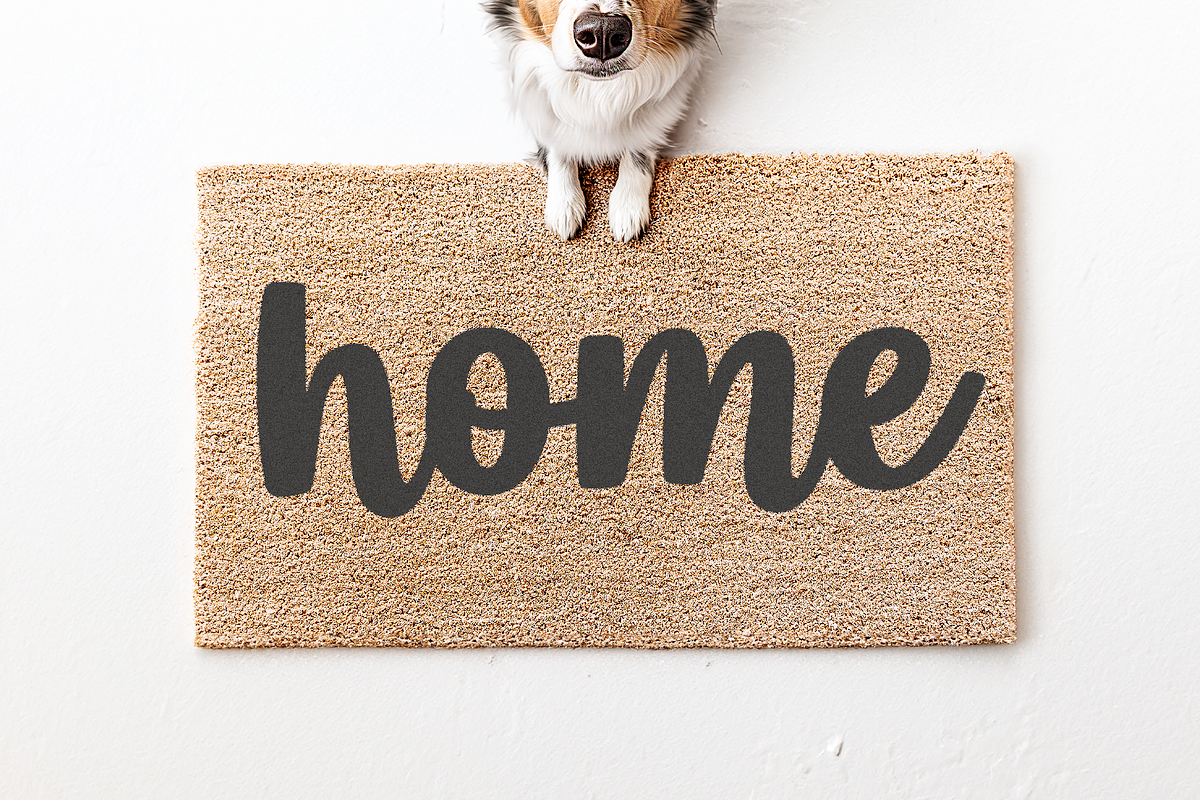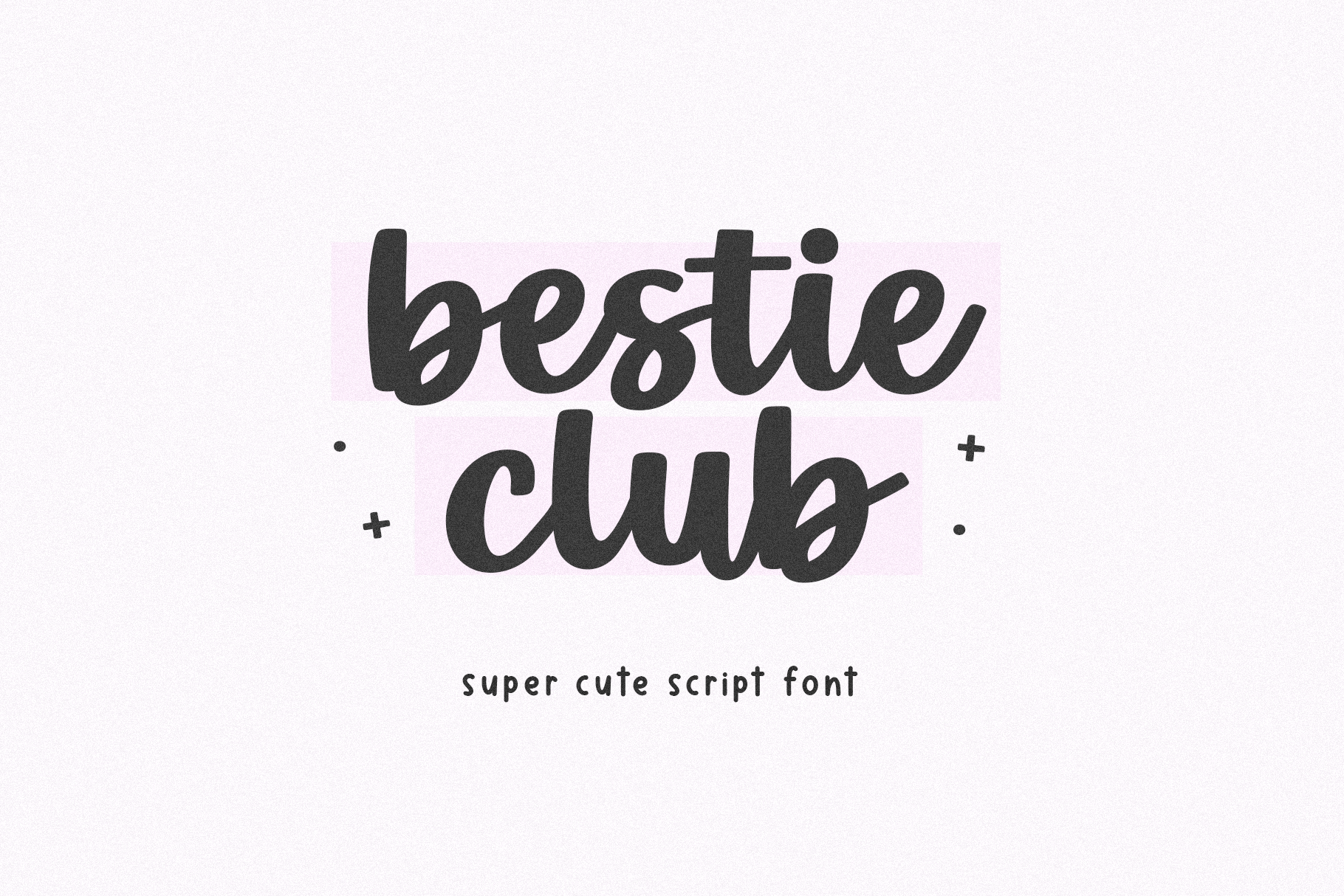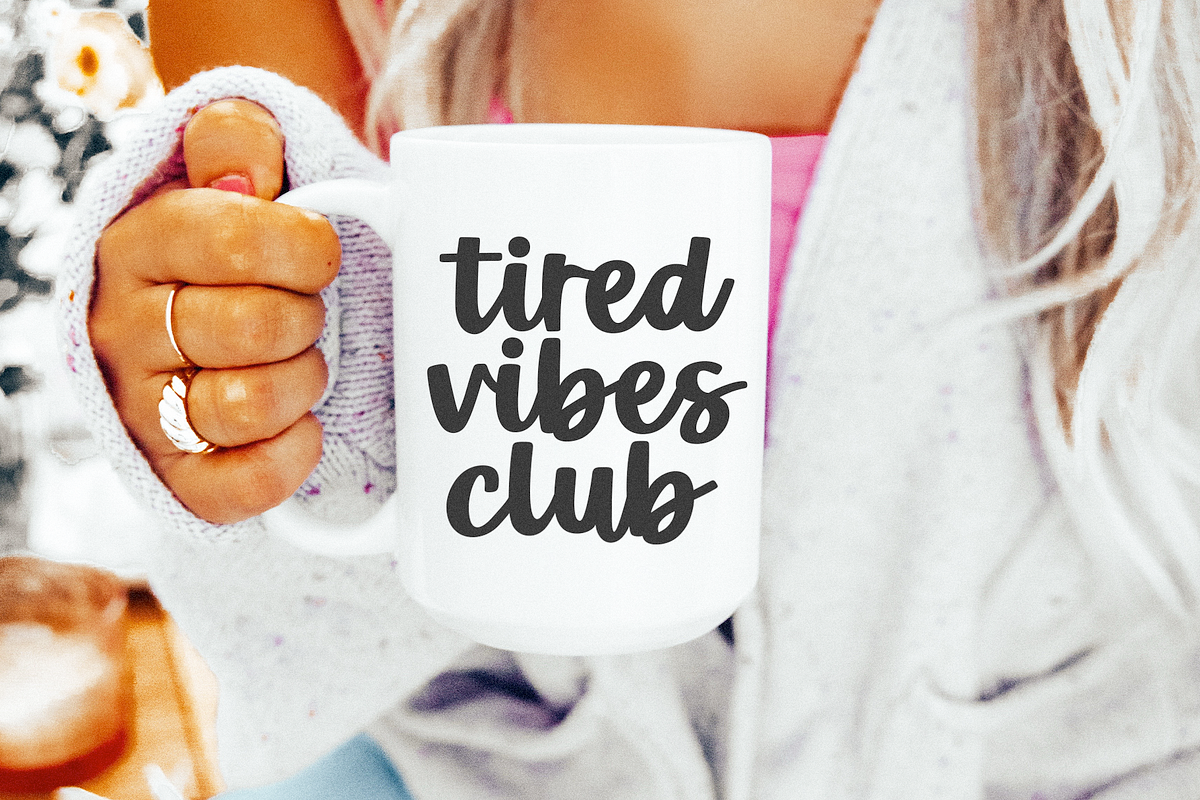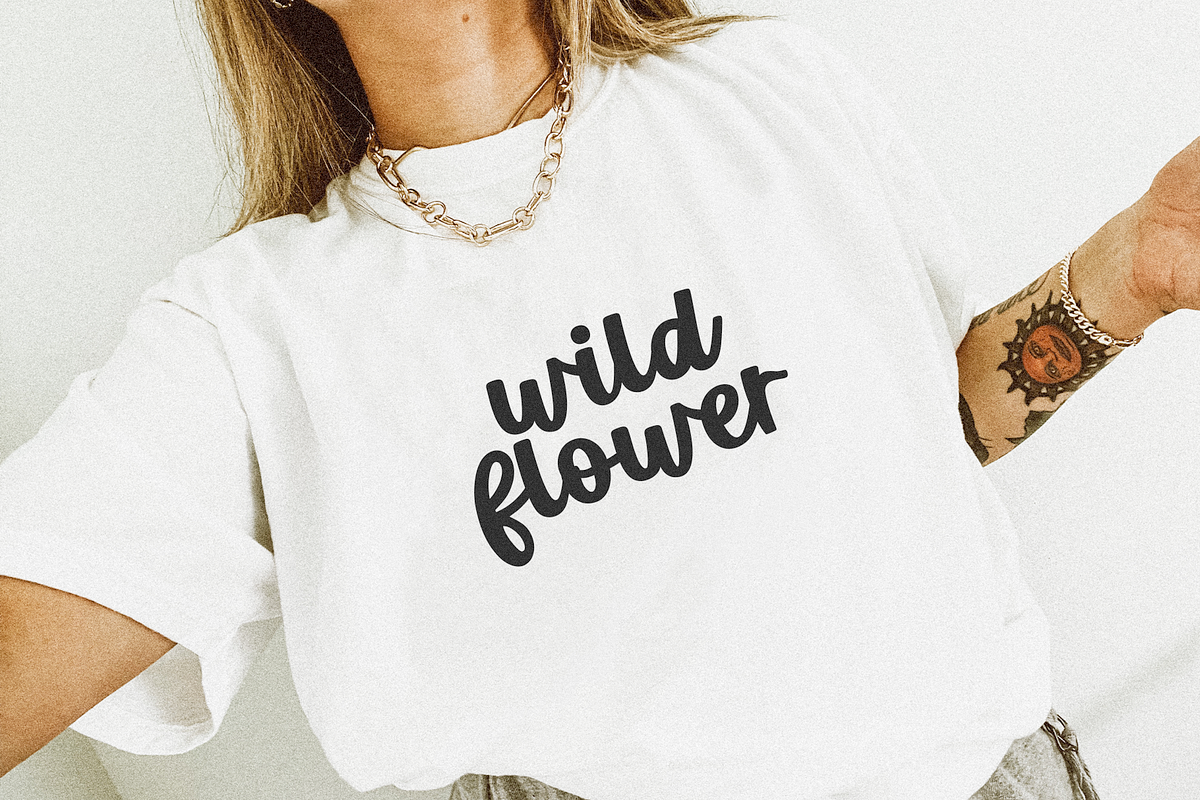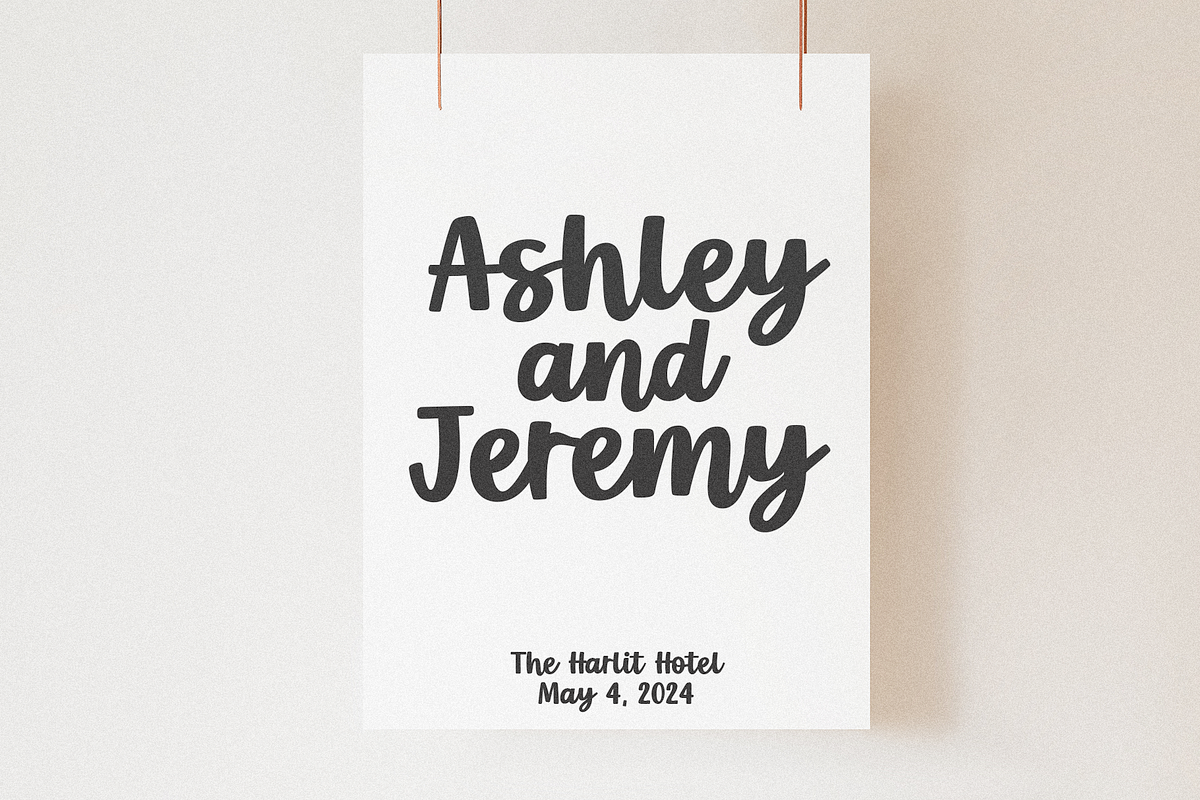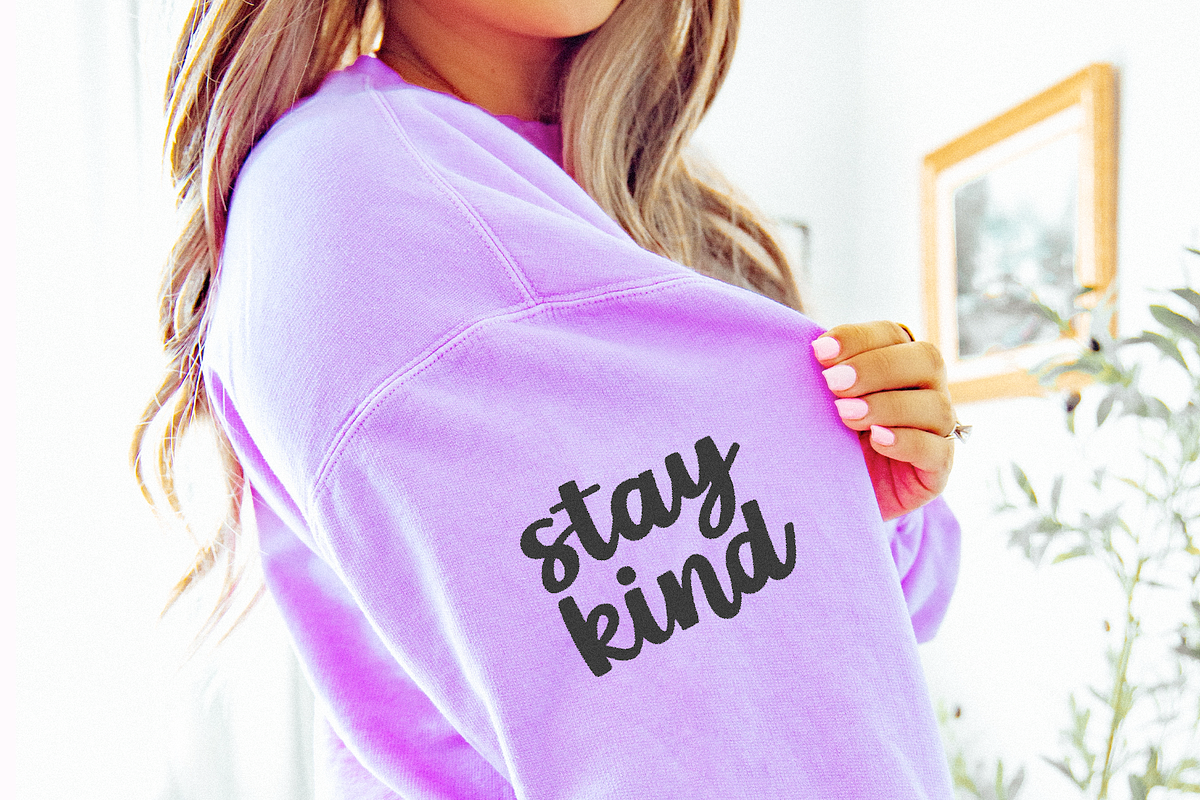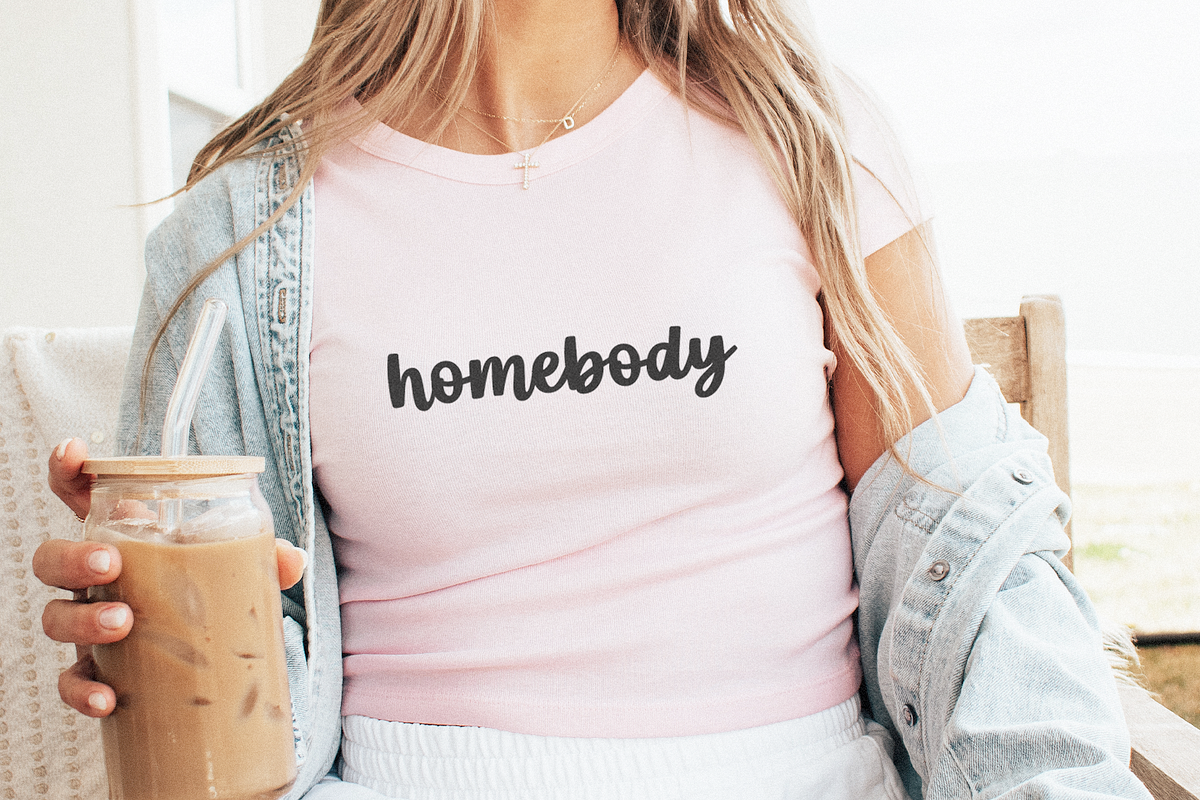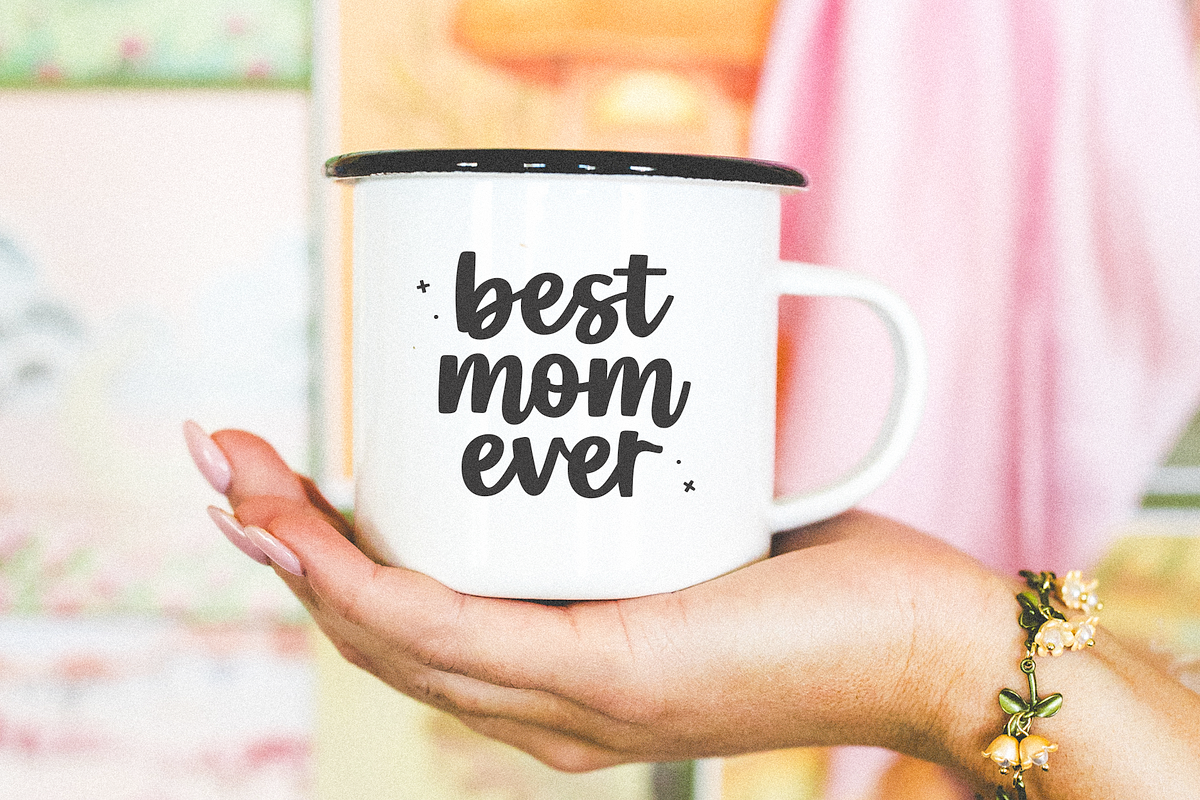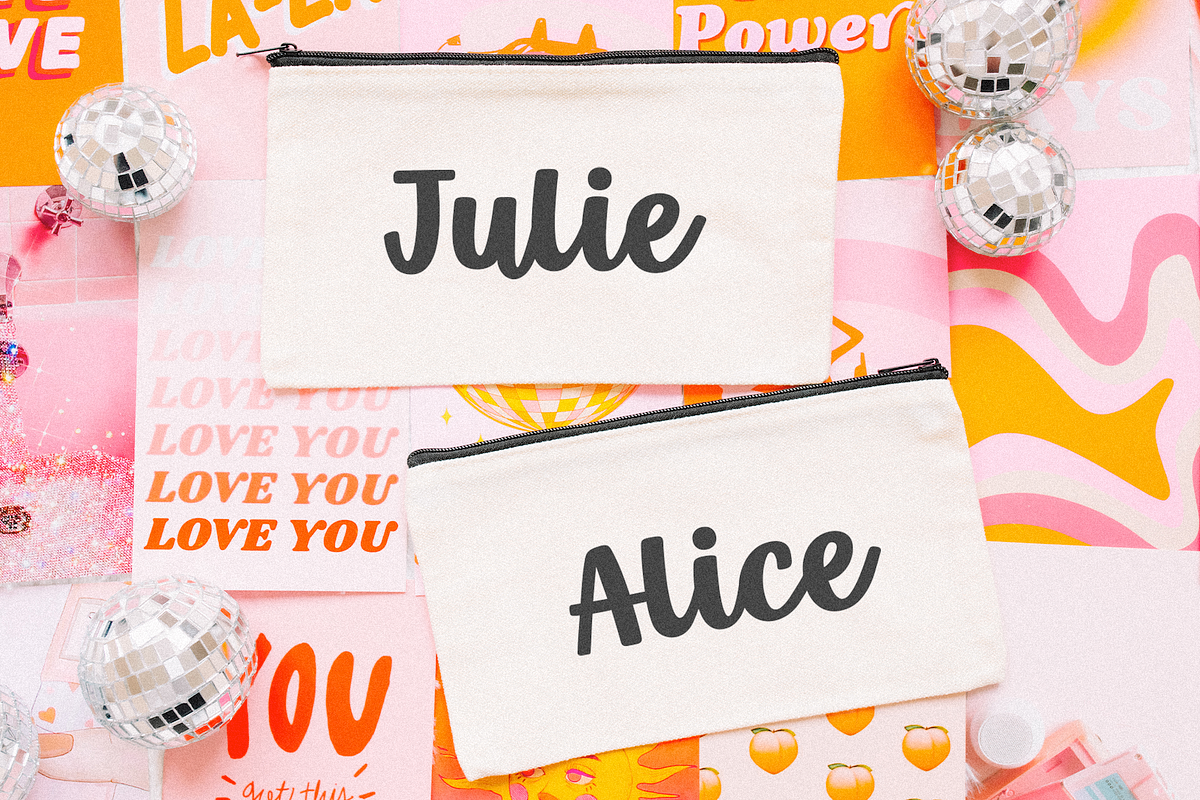
Bestie Club | Bold Script Font
Bestie Club is a cute handwritten script font!
This font is perfect for cricut projects, Canva, logos, shirts, stickers, lasers / glowforge projects, goodnotes, teachers, quotes, procreate and more!